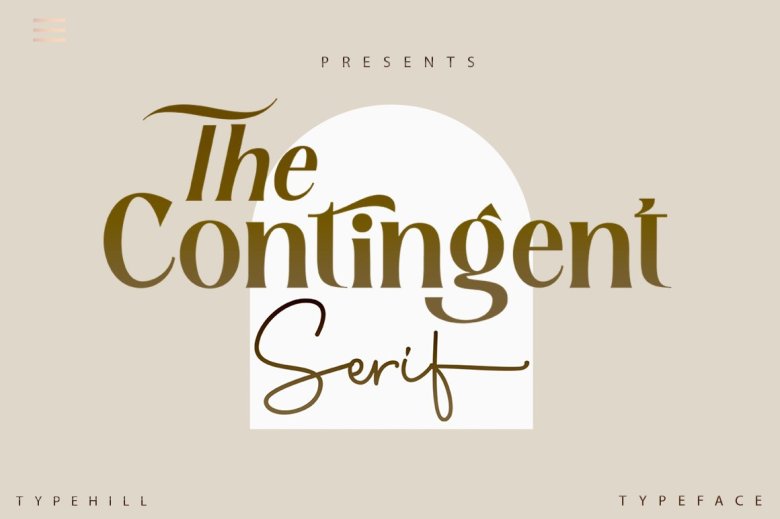
Contingent Font
Contingent Font is a  serif font designed by Typehill, full of visible grace and silky curves. Continget Font has a new, simplified appearance that would make your website, modern logos, brand imageries, social media quotes, nuptials stationeries, and other designs look tidy and luxury!
Contingent Serif Font